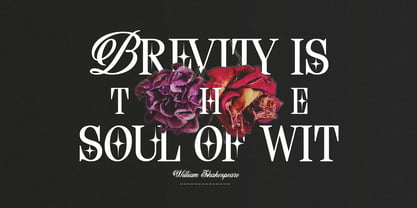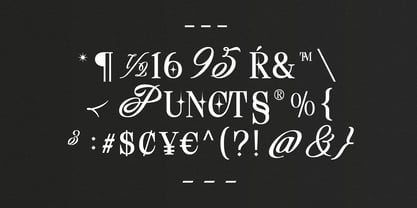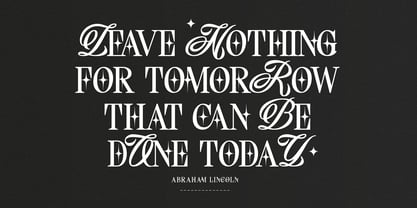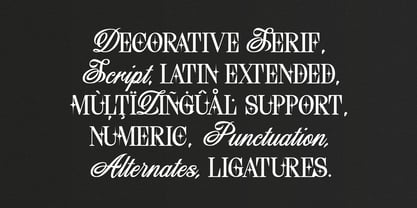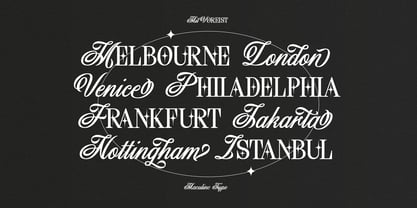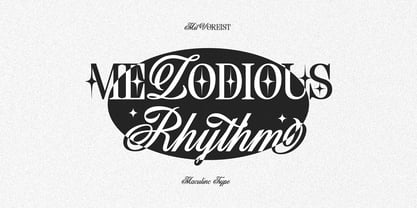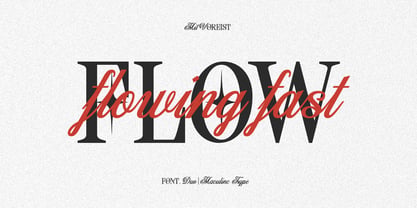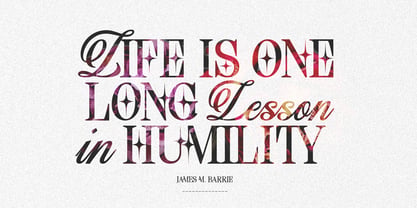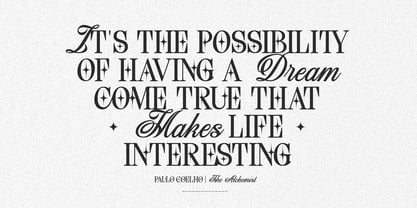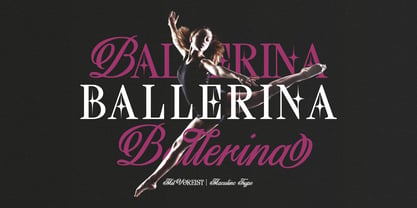
MIT Voreist
by Maculinc
The MIT Voreist Font Family was designed by Lukmanul Khikmatullah and published by Maculinc. MIT Voreist contains 2 styles and family package options. More about this family
MIT Voreist is a Serif & Script Font with a classic style. Soft curves and a few extra elements like stars are combined with high-contrast glyphs, which convey both feminine and masculine qualities.
This font consists of 2 Serif Regular Fonts and Script Regular, with some unique ligatures and alternates provided. Very good in layout design for quotes or body text, best used as a display for titles, logos, business cards, brands, magazines, product packaging, and invitations.
Combine Script and Serif to create a unique and very beautiful look, and add alternates in script to make it more interesting.